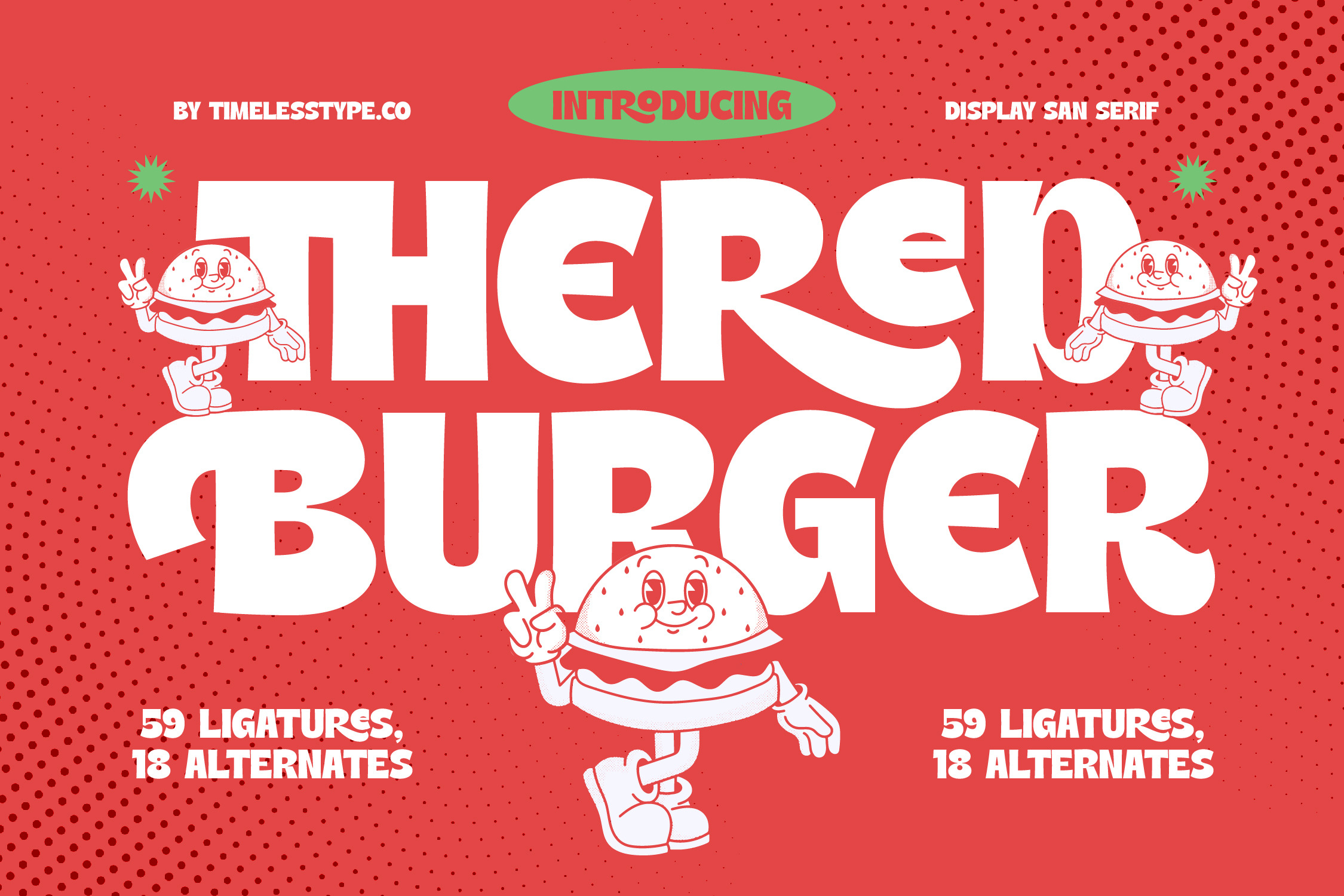
Thered Burger Retro Display Font
Experience the vibrant energy and nostalgic charm of Thered Burger, a font designed to make your projects pop with personality. This display typeface invites viewers into a world of fun where every character tells a story of creative freedom.
Inspired by the golden era of psychedelic poster art and vintage mascot culture, this font captures the essence of 1970s bubble lettering. It reflects a time when design was bold, unapologetic, and filled with a sense of wonder and playfulness.
This typeface stands out as a modern serif display that bridges the gap between classic funk and luxury typography. With its high-contrast serif elements and massive branding impact, it is an essential editorial font for anyone looking to command attention instantly.
Perfectly aligned with the modern serif trend, this typeface brings a fresh perspective to editorial display fonts. It taps into the demand for character-driven typography that breaks away from corporate minimalism to offer something truly unique and memorable.
It is the ultimate tool for standout logo design and vibrant branding, ensuring your project leaves a lasting impression. From high-energy editorial layouts to quirky packaging, and even bold statements in wedding or fashion stationery, its versatility knows no bounds.
This professional package includes a vast library of 59 ligatures and 18 alternates to give your text a custom, hand-lettered feel. Full support for multilingual layouts and international characters ensures your message reaches a global audience with ease.